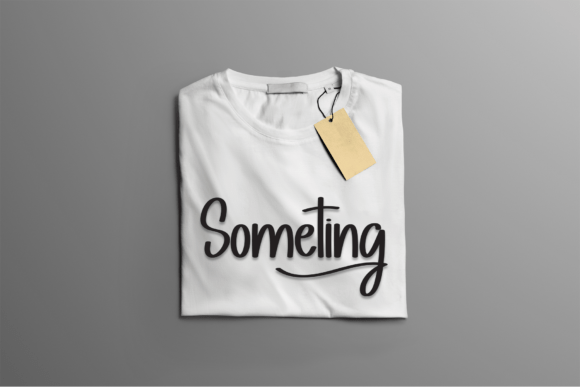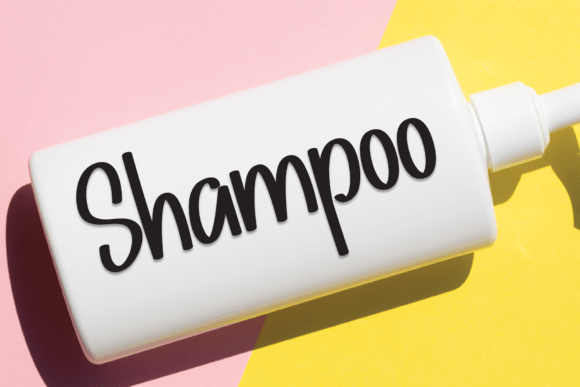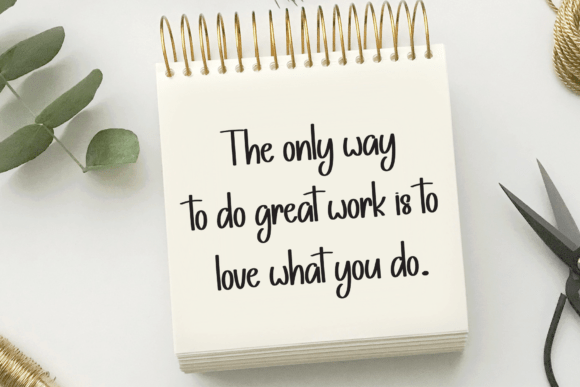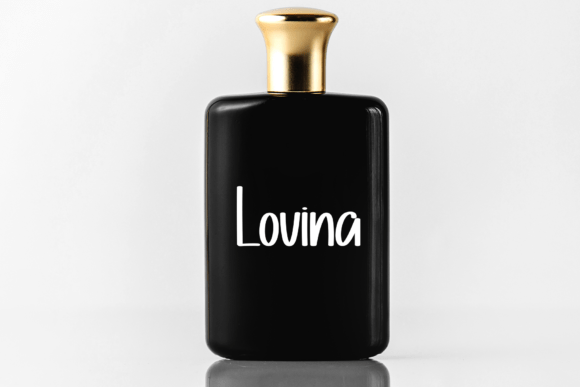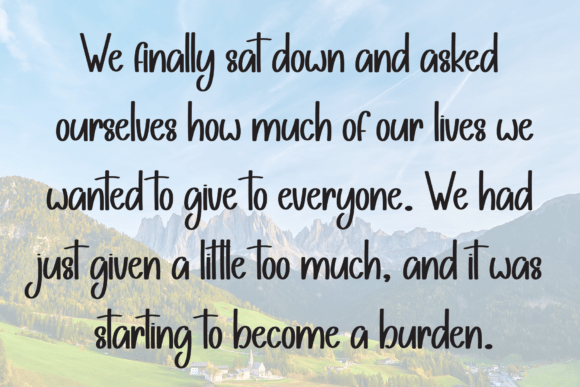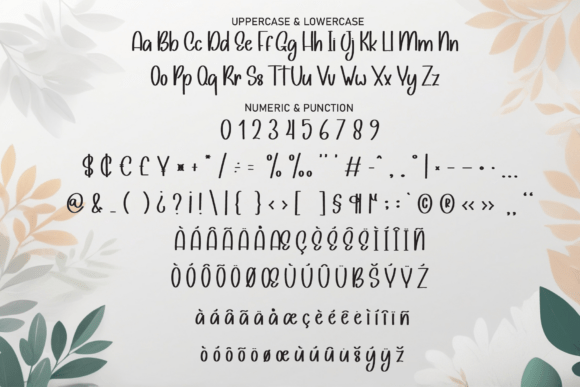
Introduction to Fancy Handwritten Font
Fancy Handwritten is a chic and stylish script font that blends clean, contemporary lettering with whimsical flourishes.
Ideal for branding, wedding invites, lifestyle blog headers, and social media content, it offers a handwritten look that feels personal yet polished The sweeping swashes add an elegant, feminine touch to any project.